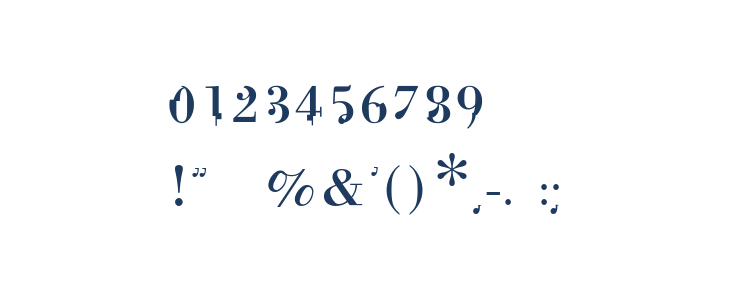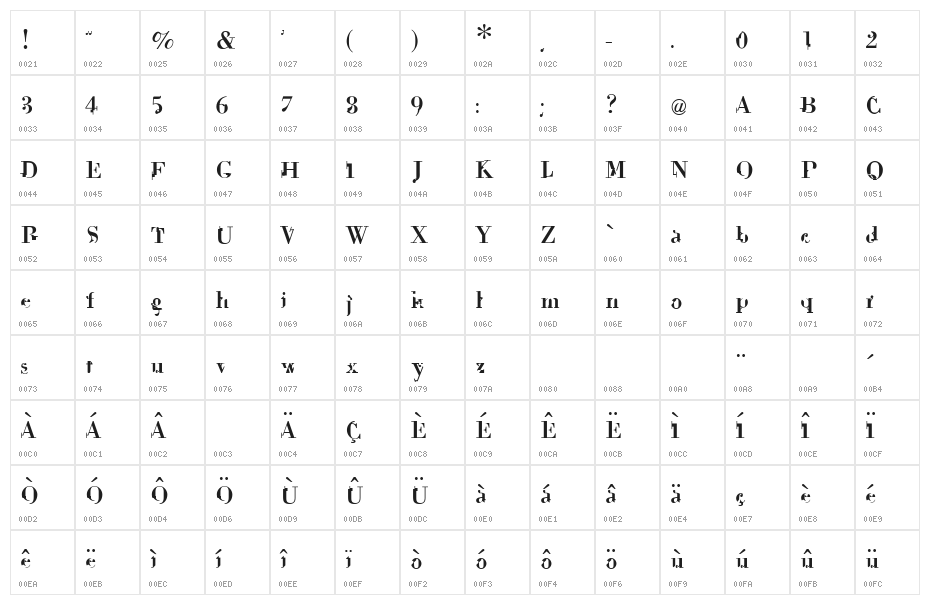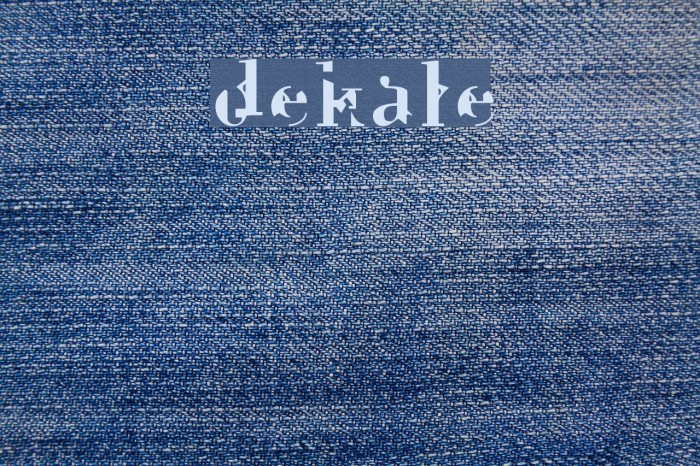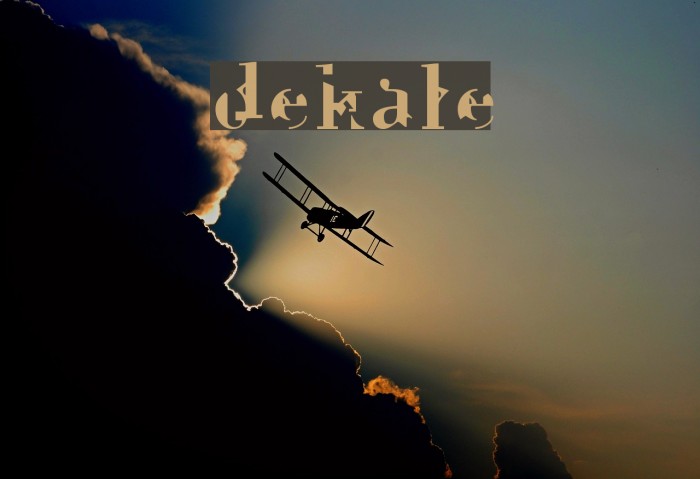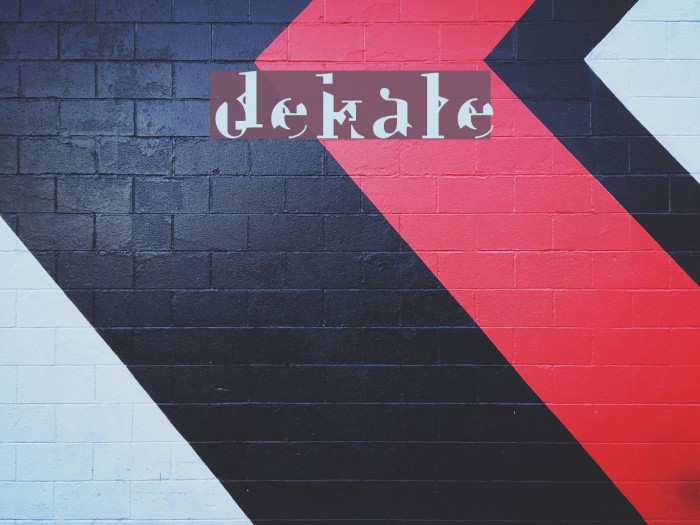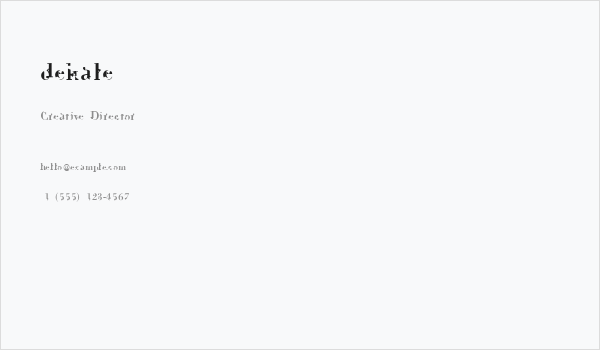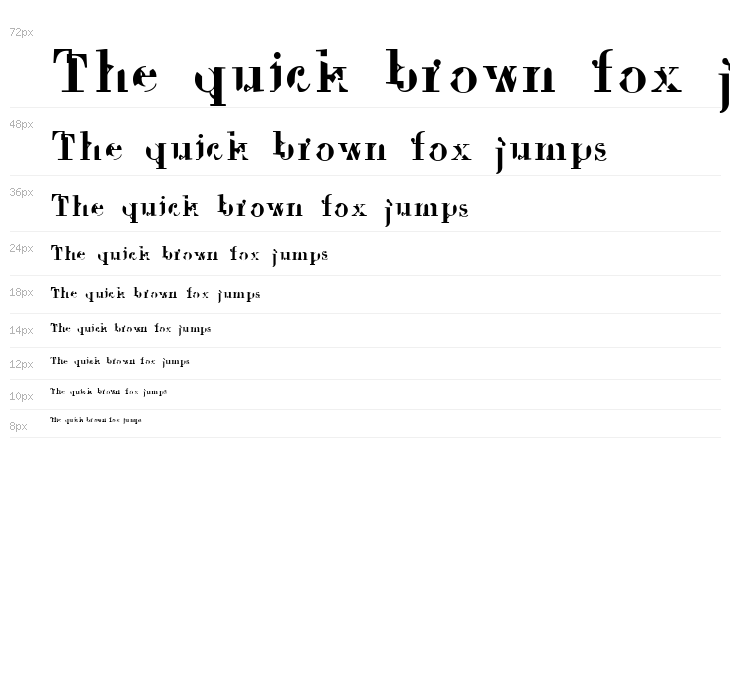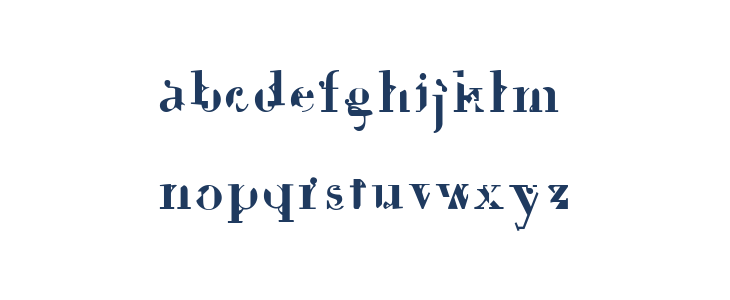
dekale Font
dekale Description
This font features a unique and artistic design with a high level of contrast in its stroke thickness. The characters are bold and display a decorative style, incorporating unexpected cuts and angles that give it a fragmented, almost glitch-like appearance. The uppercase and lowercase letters maintain a consistent style, with sharp serifs and varying line widths that create a dynamic visual impact. The numerals and special characters follow the same design principles, ensuring a cohesive look across all glyphs. This font is particularly striking and would stand out in any design project that aims to capture attention and convey a sense of modernity and creativity.
Overall StyleModern, Decorative
Proposed ProjectsIdeal for modern art projects, album covers, posters, and any design work that requires a bold statement.